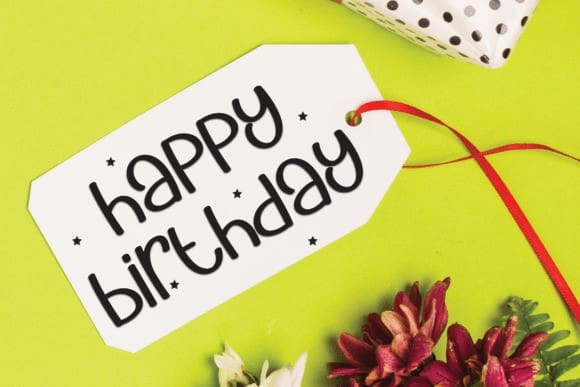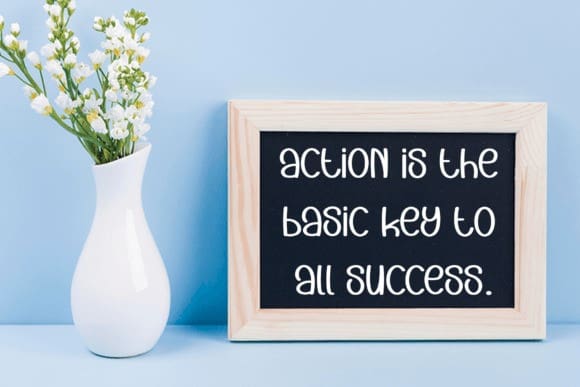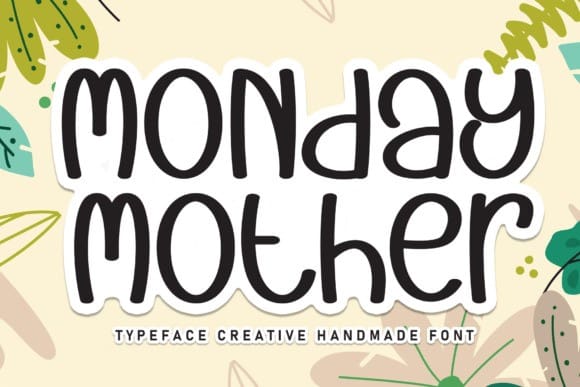
Monday Mother Font
Monday Mother is a sweet and friendly handwritten display font. Cute and fun, this font is ideal for writing wedding invitations, cards, or any other design that might need a fun touch!